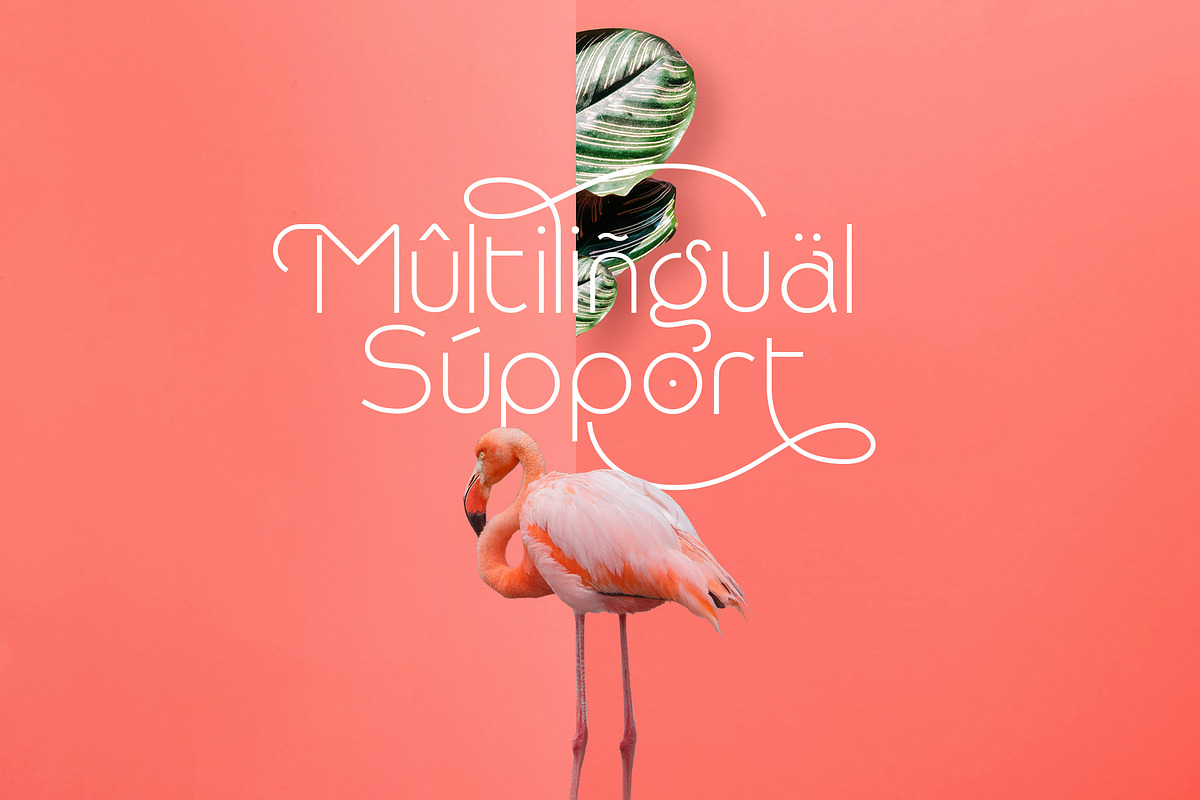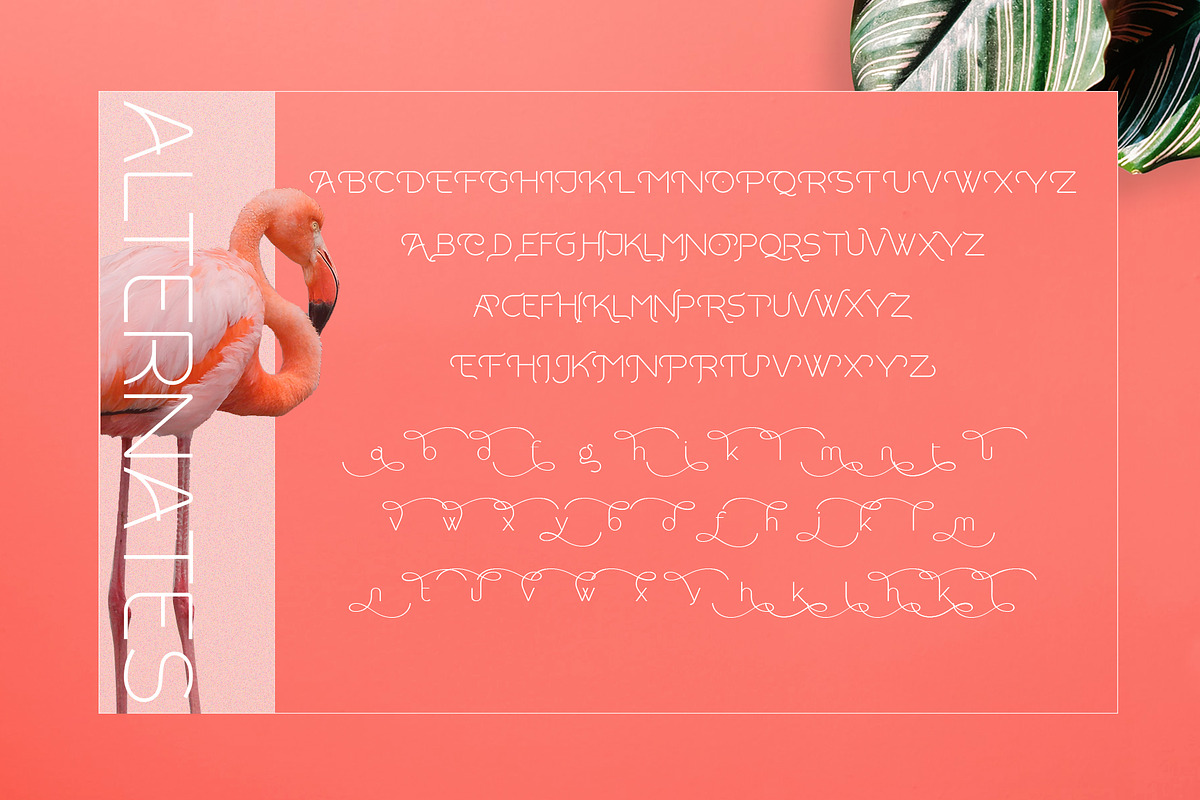
Rollgates Modern Sans
Rollgates - An Modern Sans Serif
Rollgates - An Modern Sans Serif and minimalist character! it's perfect for logos, name card, magazine layouts, invitations, headers, or even large-scale artwork.